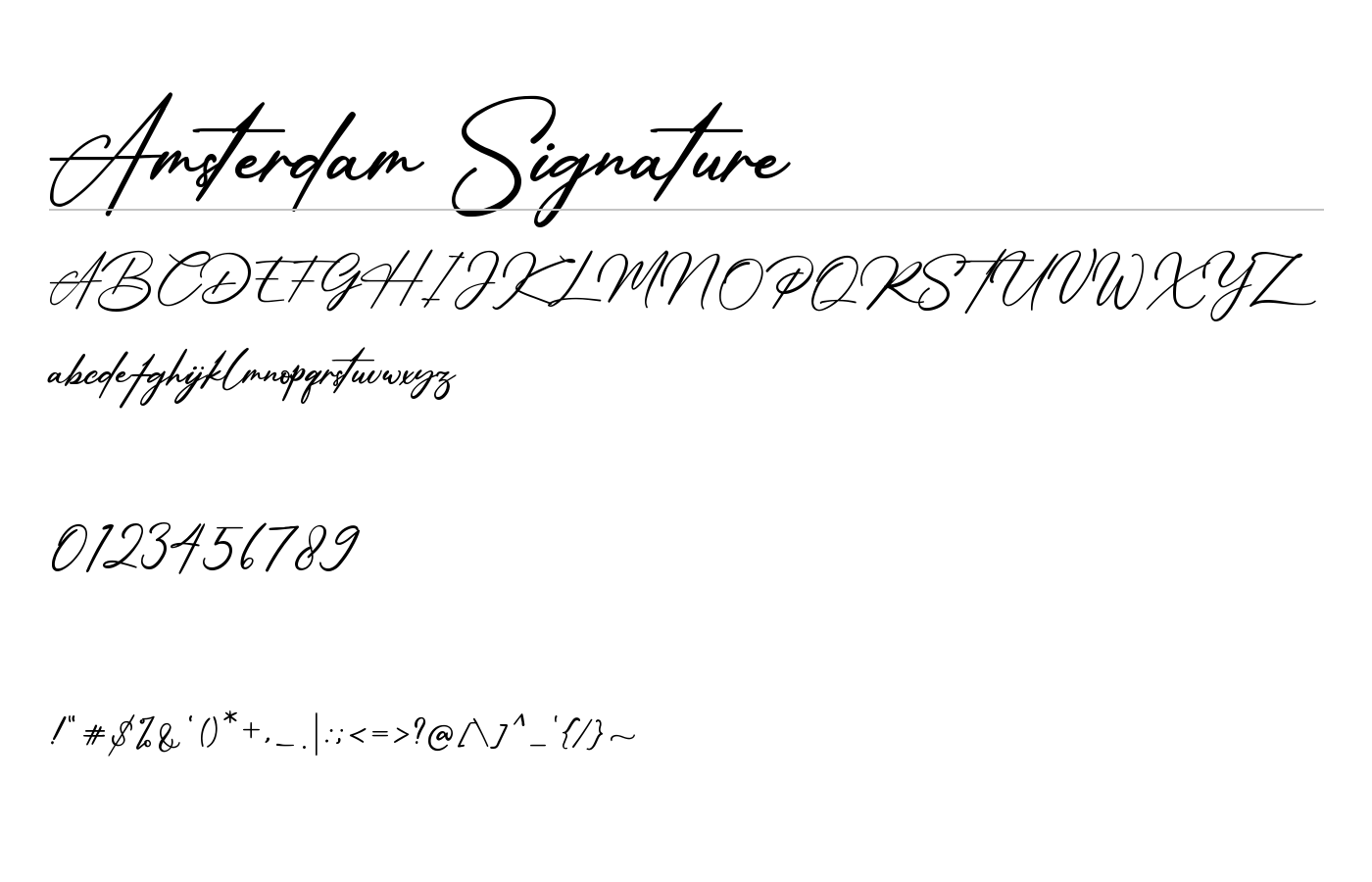
Amsterdam Signature is an elegant, modern script font that mimics natural handwriting with a smooth, flowing style and slender strokes. Its slim weight and slightly condensed letterforms create a refined and personal feel, making it perfect for branding, invitations, and sophisticated design projects that want to convey warmth and individuality. This font works well in logos, fashion labels, and editorial headlines where a stylish, artistic touch is desired.
Amsterdam Signature Font
About Amsterdam Signature Font
| Font family | Amsterdam Signature Font |
| Designer | Staircase Studio |